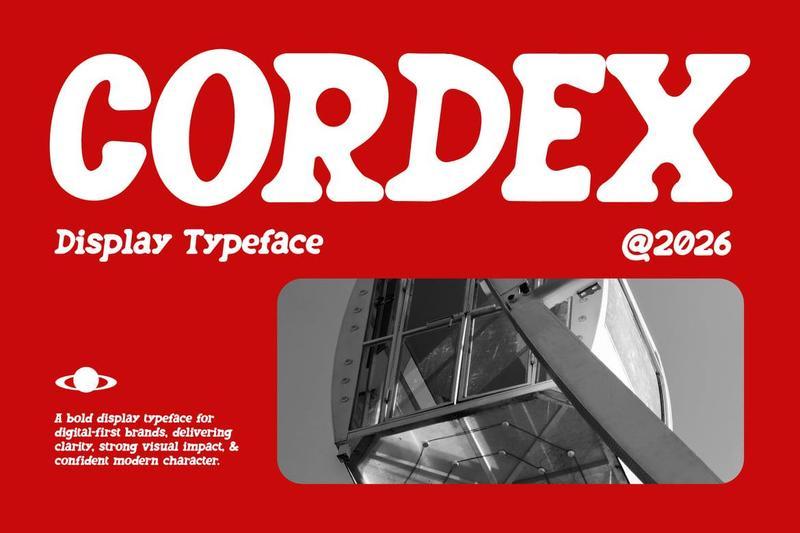
**Cordex Digital Brand Identity Display Font**
Cordex is a digital brand identity display font for bold editorial and tech-driven visuals, designed with sharp serif terminals, high contrast strokes, and solid geometric proportions that create a confident and structured presence. Its bold, impactful, and modern-editorial vibe fits seamlessly into tech branding, media platforms, and startup visuals, while the precise letterforms ensure clarity and authority across digital environments.
Crafted for brand identity systems, tech campaigns, editorial layouts, and app UI headlines, Cordex helps designers build visuals that feel strong, strategic, and digitally native. Whether you’re designing a startup identity, media platform, or promotional mockup, this typeface delivers attention-grabbing headlines and a professional, high-impact tone that resonates with modern audiences.
Key Features :
* Bold Digital Identity
– Strong serif construction with sharp, confident terminals
– High contrast strokes for clear hierarchy and visual impact
– Designed to stand out in branding and digital media
* Editorial Meets Tech
– Combines editorial sophistication with modern digital clarity
– Structured proportions for clean, scalable layouts
– Perfect balance between classic and contemporary style
* Optimized for Modern Use
– Ideal for app UI, websites, social media, and campaigns
– Maintains legibility across screens and large-scale displays
* Versatile Branding Tool
– Works for brand identity, posters, presentations, and mockups
– Suitable for startups, agencies, and media creators